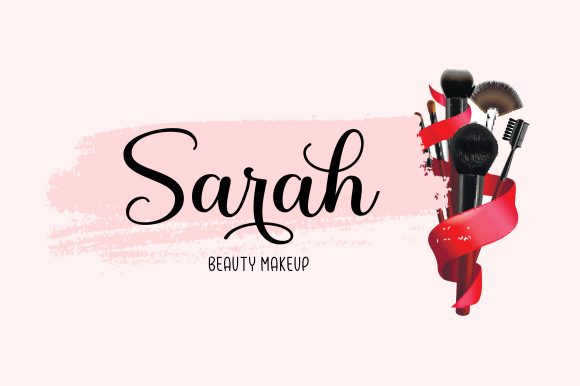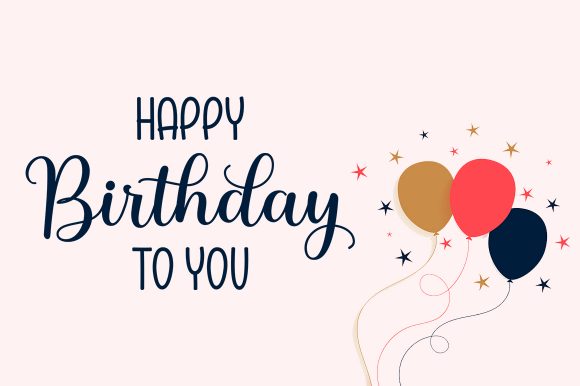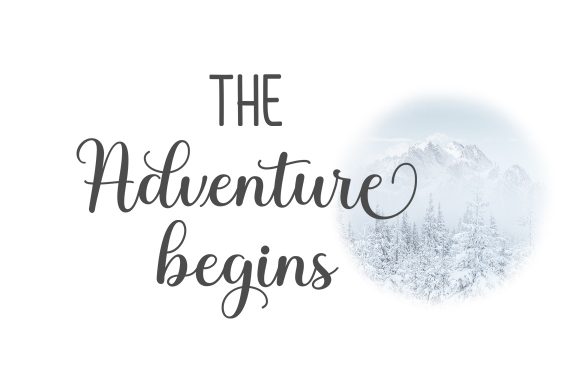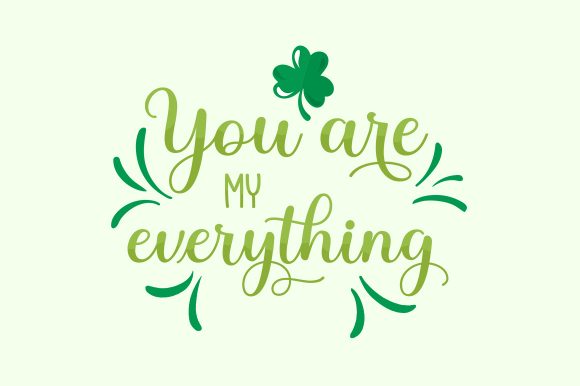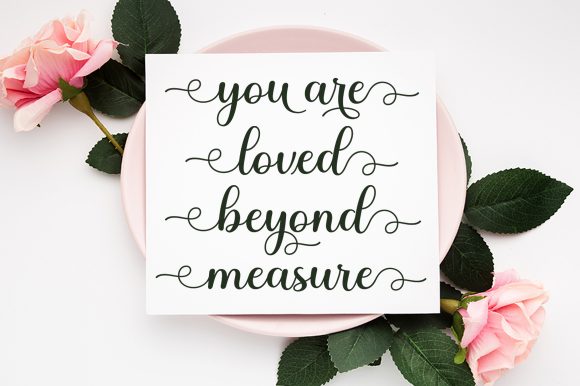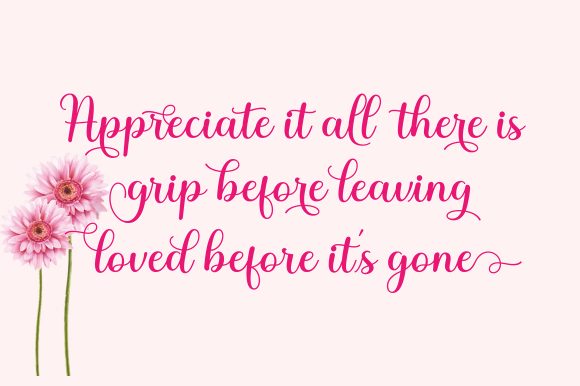
Introduction to Lovely Nathalie Font
Have you ever stumbled upon a font that instantly transports you to a whimsical world of romance and elegance? For me, that moment came when I first laid eyes on the Lovely Nathalie Font. Its enchanting combination of sans serif and handwritten styles had me hooked, and I couldn’t wait to incorporate it into my next design project.
As a designer, I know how crucial it is to have a versatile and high-quality font at our disposal. Lovely Nathalie Font is precisely that – a design resource that can elevate your creative project from ordinary to extraordinary. Whether you’re working on a greeting card, a wedding invitation, or a headline, this font is guaranteed to add a touch of sophistication and romance.
Key Features of Lovely Nathalie Font
- Unique, elegant script font with a transparent background, ideal for various design applications.
- Supports a wide range of languages, making it suitable for global design projects.
- Perfect for creating invitations, quotes, and other design elements that require a touch of elegance.
Honest Review: Lovely Nathalie Font
The font itself is quite lovely (pun intended), with a beautiful, hand-drawn feel that’s perfect for creative projects. One of the standout features is the transparent background, which makes it easy to use in various design scenarios.
- Beautiful, hand-drawn feel
- May not be suitable for formal or corporate designs
- Limited font styles available
Overall, I’m quite impressed with the Lovely Nathalie Font. It’s a great resource for designers working on creative projects, and its high quality makes it a valuable addition to any design library.
Tips for Getting the Most Out of Lovely Nathalie Font
To get the most out of the Lovely Nathalie Font, use it on a transparent background to create a visually appealing design. Experiment with different font sizes and styles to enhance the overall look of your creative project.
The Lovely Nathalie Font is ideal for various design projects, including:
- Food and beverage branding
- Travel and tourism marketing materials
Alternatives to Lovely Nathalie Font
Fontinum
Fontinum is a high-quality, elegant script font perfect for creative projects that require a touch of sophistication. It’s ideal for wedding invitations, branding materials, and other design elements where a delicate feel is desired. With its transparent background and smooth lines, Fontinum is a great alternative to Lovely Nathalie Font for designers seeking a more refined look.
Comparison: Fontinum offers a more subtle and understated appearance compared to Lovely Nathalie Font’s playful and whimsical feel.
Amatic SC
Amatic SC is a free download font that’s perfect for designers working on creative projects that require a bold and eye-catching look. This high-quality font is ideal for use in posters, flyers, and other promotional materials where a striking font is needed. With its transparent background and modern design, Amatic SC is a great alternative to Lovely Nathalie Font for designers seeking a more edgy feel.
Comparison: Amatic SC offers a more rugged and modern appearance compared to Lovely Nathalie Font’s classic and elegant feel.